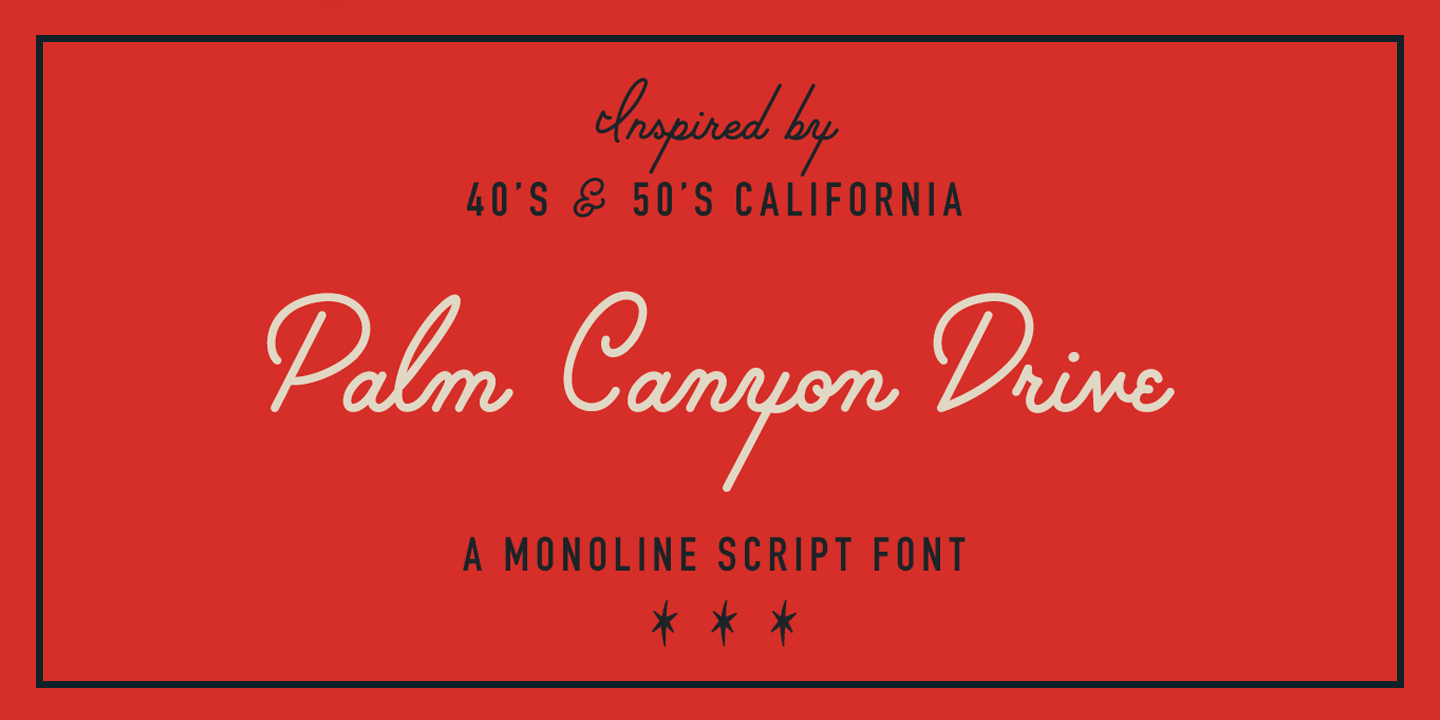
The Palm Canyon Drive Font is ideal for tropical resort branding, vacation destination marketing, beachside restaurant logos, summer festival posters, surfing brand identities, coastal real estate signage, poolside bar menus, and California lifestyle campaigns. This vibrant typeface works exceptionally well for travel agencies, beach clubs, tropical hotels, surf shops, summer clothing brands, and businesses capturing the laid-back essence of Palm Springs and California desert culture.
What makes the Palm Canyon Drive Font exciting is its perfect capture of Southern California's desert oasis charm and retro vacation vibes. The font features sun-soaked letterforms with relaxed proportions and vintage-inspired details that evoke endless summer days and palm-lined streets. Its casual elegance and nostalgic appeal create an immediate association with luxury desert retreats, mid-century modern aesthetics, and the glamorous Palm Springs lifestyle. The font's warm, inviting character transforms any design into a vacation destination.
The Palm Canyon Drive Font family includes vacation-ready variations: Regular, Light, Bold, Script, Vintage, and Shadow versions. Each style maintains the font's desert resort character while offering different levels of tropical sophistication and design versatility. The family also features palm tree ornaments, sun symbols, and California-inspired decorative elements that enhance vacation-themed design projects.
Whether you're developing resort brand identities, creating tropical marketing materials, or designing summer promotional campaigns, the Palm Canyon Drive Font Free Download provides the perfect solution for projects requiring authentic California desert typography. This remarkable typeface brings genuine Palm Springs glamour to modern design work, making it essential for designers celebrating sunshine, relaxation, and desert luxury.